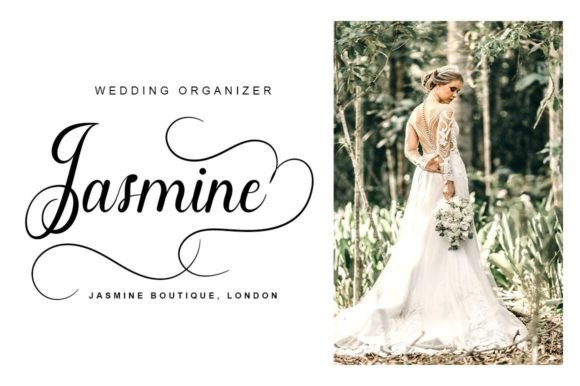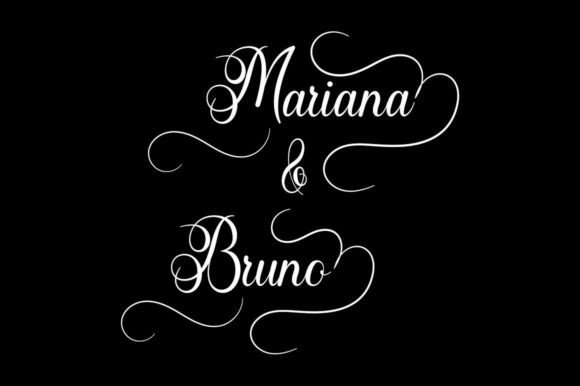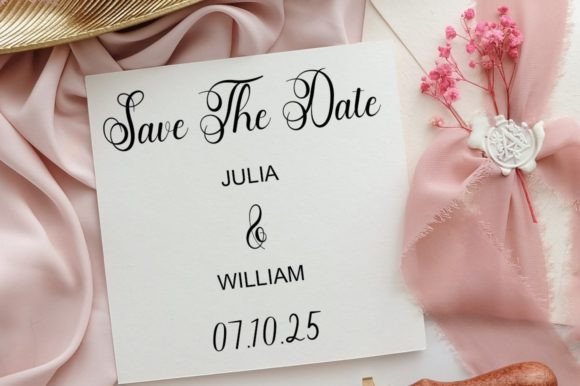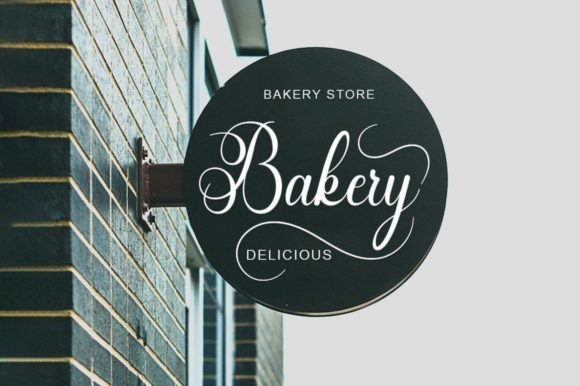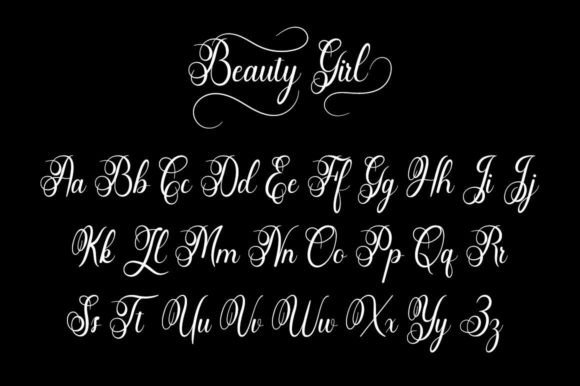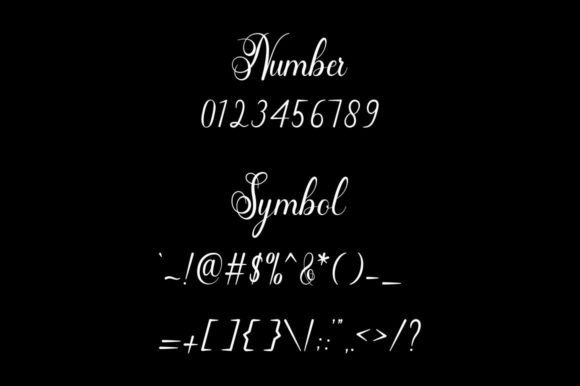
About Beautiful Girl Font
“Beautiful Girl” is an exquisite and romantic calligraphy font designed to infuse an element of luxury into your design projects. With its elegant script and delicate flourishes, this font elevates the visual appeal, adding a touch of sophistication to your creations. The inclusion of beautiful swashes further enhances the font, providing a means to make your designs even more elegant and modern.
The graceful and flowing nature of “Beautiful Girl” makes it a perfect choice for a variety of applications. Whether used for wedding invitations, branding, packaging, or any project that requires a dash of romance, this font brings a timeless and refined quality to the forefront.
One notable feature of “Beautiful Girl” is the availability of beautiful swashes. These intricate details allow you to customize and embellish your designs, creating a more personalized and luxurious aesthetic. The swashes offer a versatile way to add flair and sophistication, taking your design projects to the next level.
In essence, “Beautiful Girl” is more than just a font; it’s a tool that allows you to weave elegance and romance into your designs effortlessly. Its calligraphic charm, combined with the option to include swashes, makes it a valuable asset for designers aiming to create visually stunning and refined projects. Let “Beautiful Girl” be the font that brings a touch of luxury and romance to your creative endeavors.